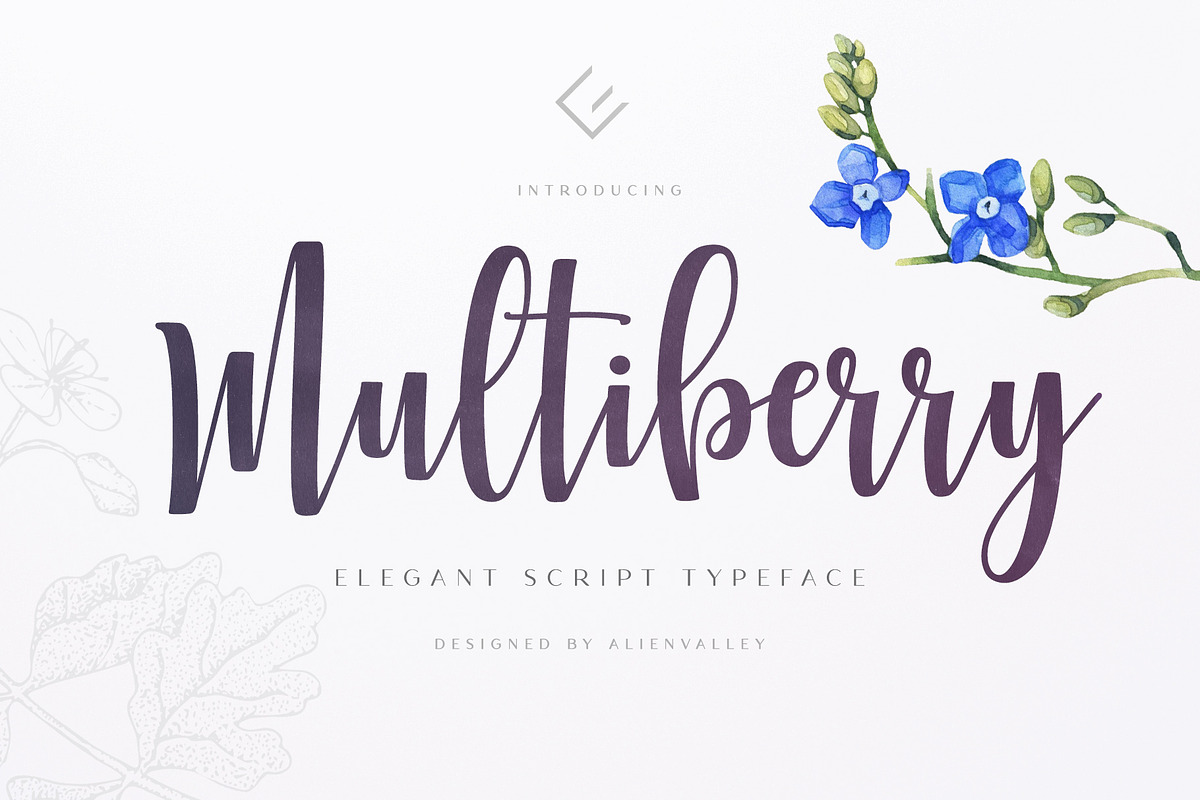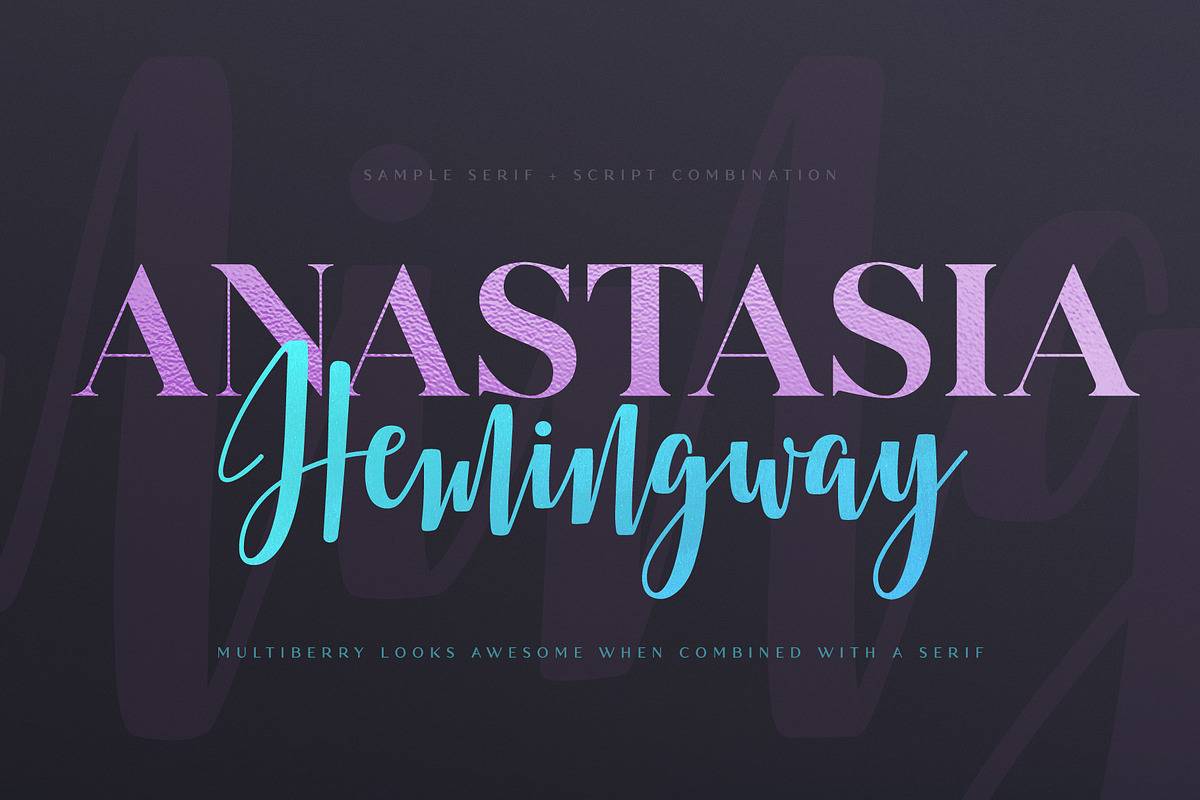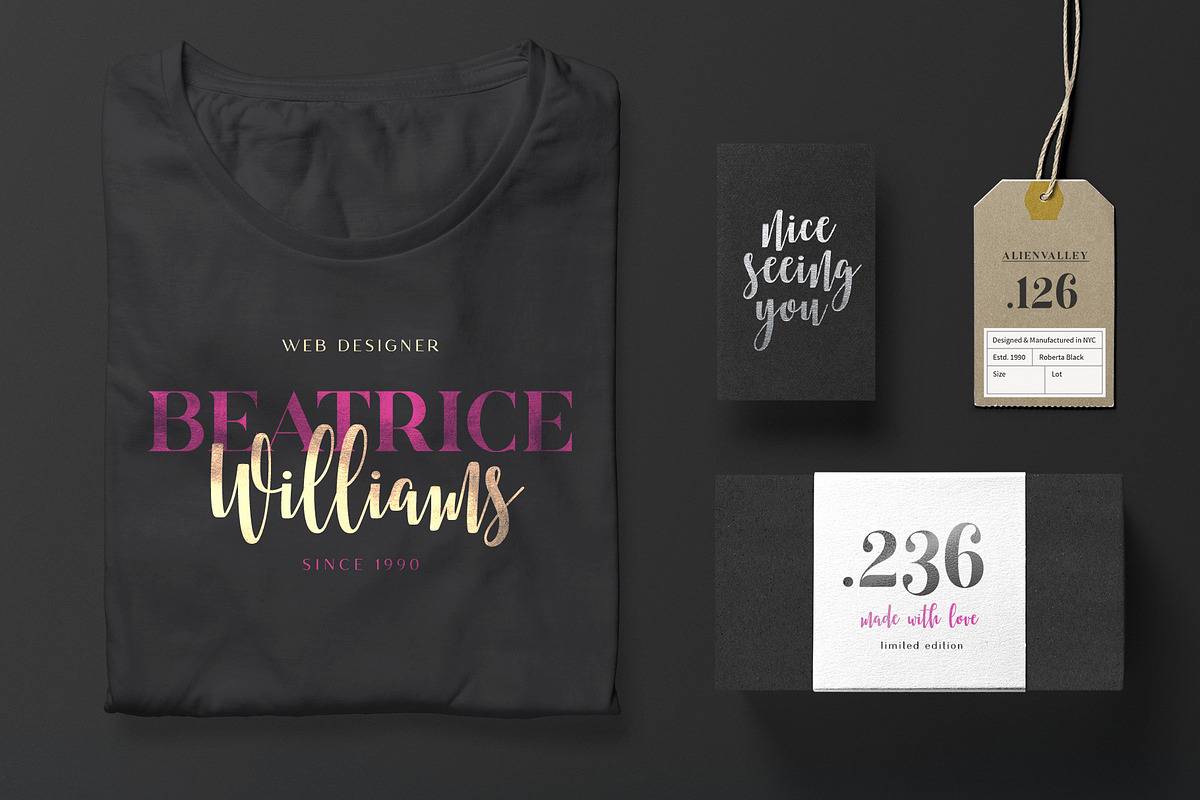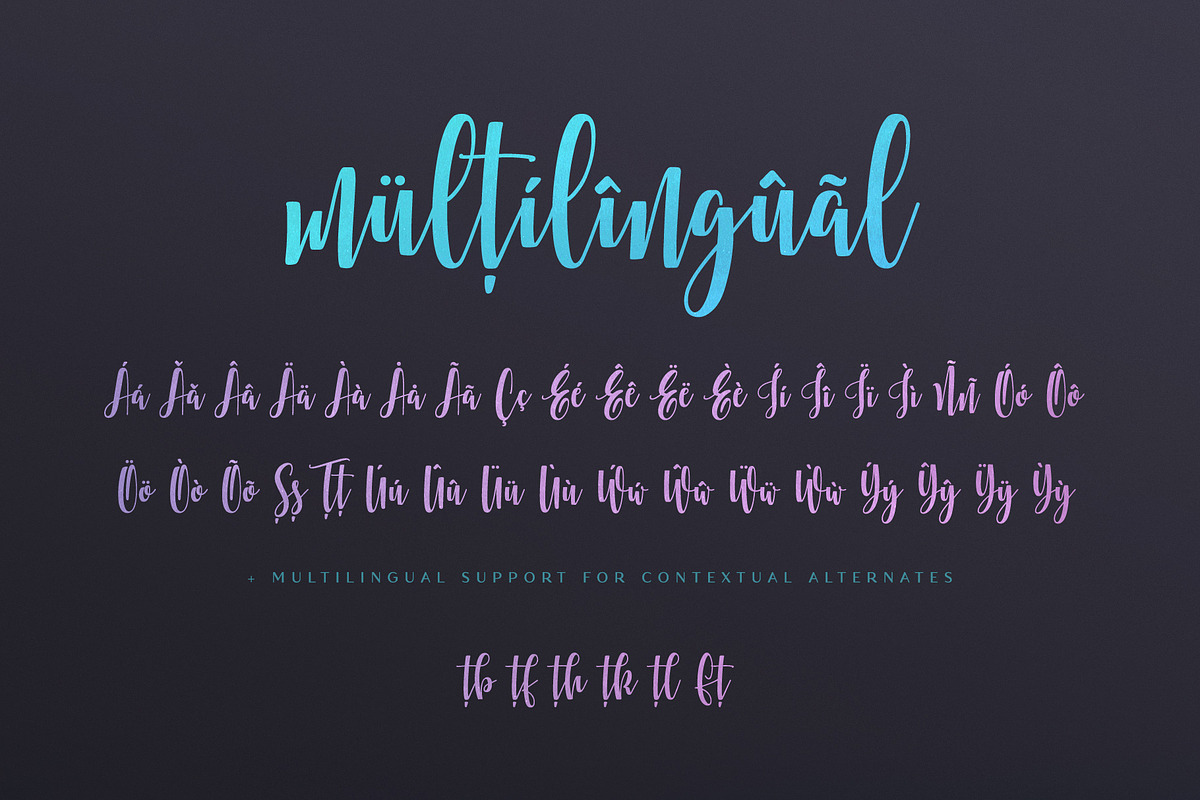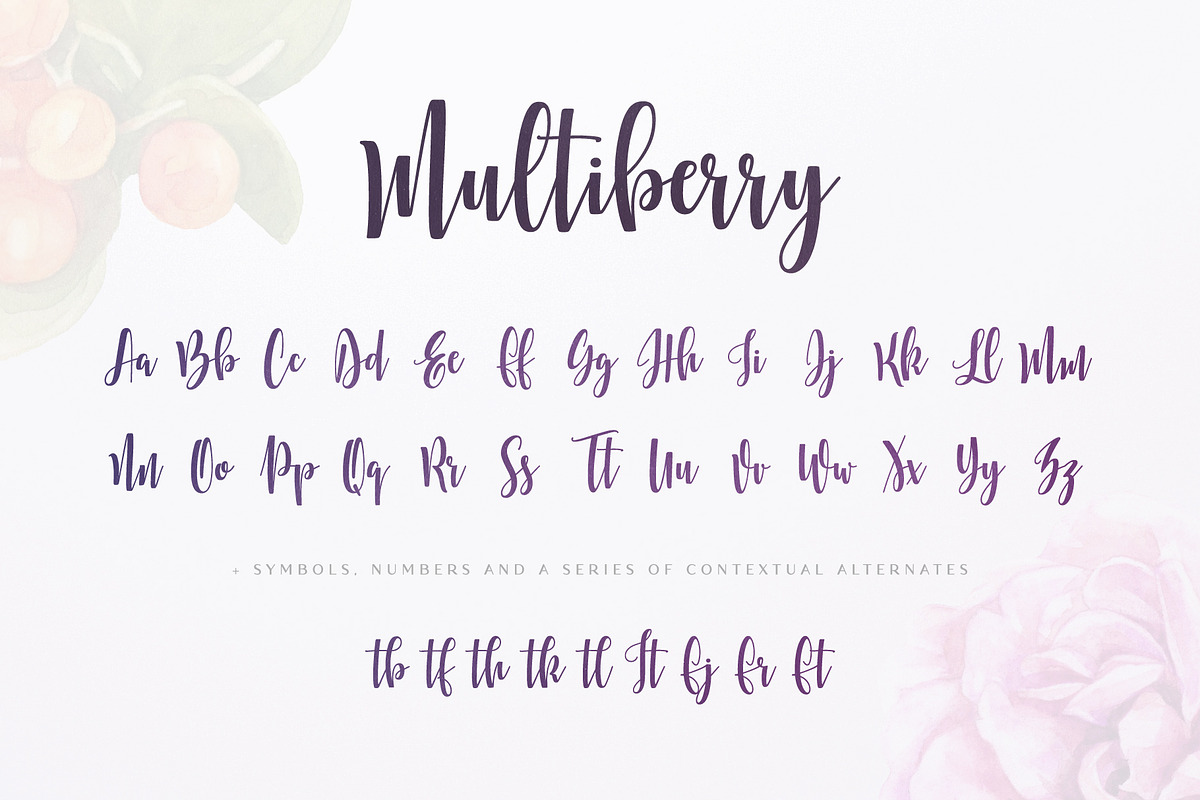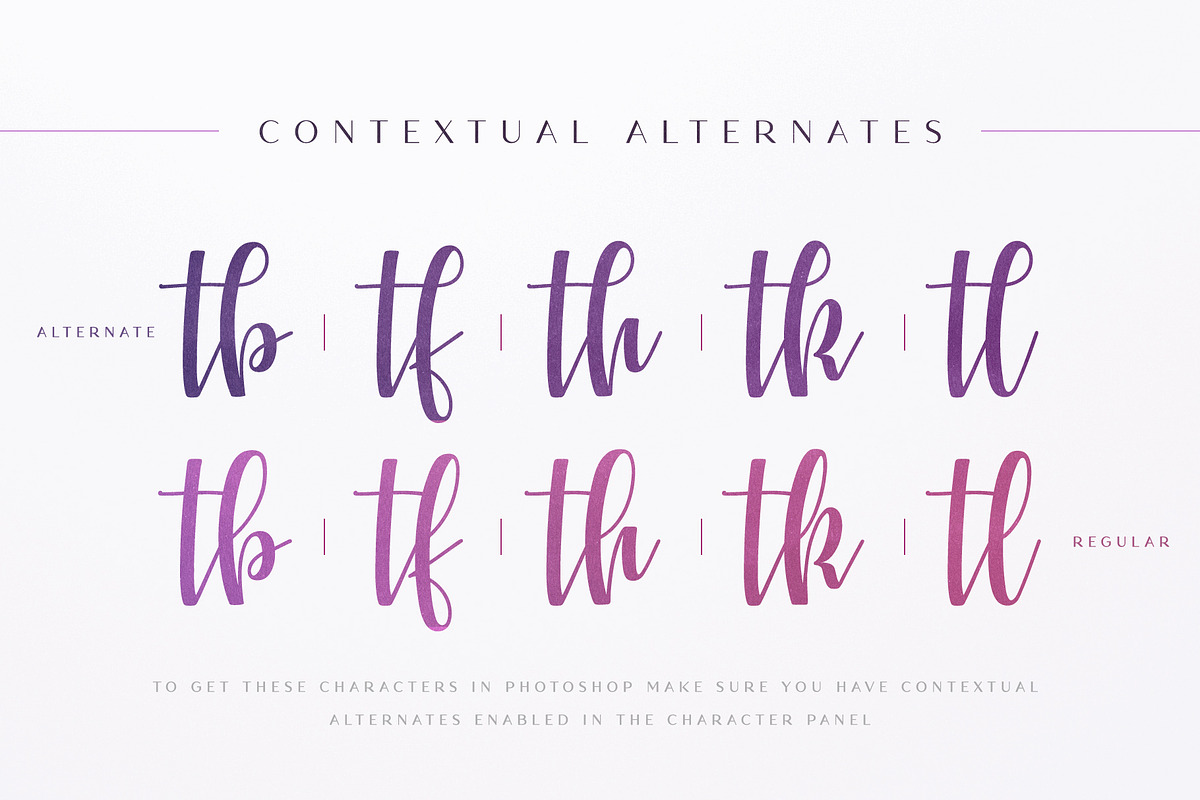
Multiberry - Script Font
Multiberry is a fun script typeface featuring both uppercase & lowercase letters plus multilingual support. It looks great when paired with serif or sans-serif fonts and it adds a whimsical flair to your designs!
Contextual alternates
- Multiberry is a fun script typeface featuring both uppercase & lowercase letters plus multilingual support.